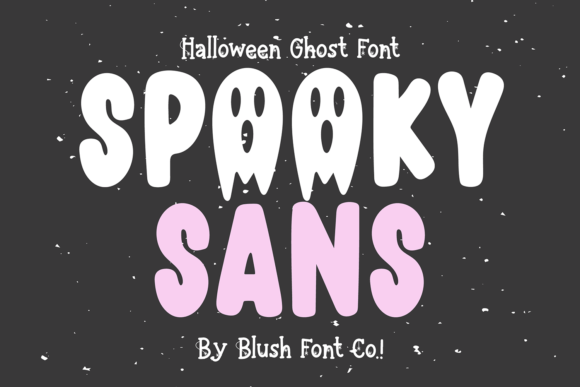
Introducing "Spooky Sans Font" - the ultimate Halloween font that will send shivers down your spine and add a haunting touch to all your creative projects! Created by the innovative minds at blushfontco, this bold and captivating sans serif font is specifically designed to elevate your Halloween party invitations, web graphics, and other spooky crafts to the next level.
When it comes to creating a truly spine-chilling atmosphere, the right font can make all the difference. With "Spooky Sans Font," you'll have the perfect tool at your fingertips to bring your dark and mysterious visions to life. This font exudes an air of mystery and intrigue, capturing the essence of Halloween like no other.
Crafted with meticulous attention to detail, "Spooky Sans Font" embraces the spirit of Halloween with its soft yet bold block style. Each letter is carefully crafted to evoke a sense of eerie anticipation, making it the ideal choice for creating a mysterious ambiance that will leave your audience spellbound.
One of the most remarkable features of "Spooky Sans Font" is its versatility. Whether you're designing a spine-tingling Halloween party invitation, a chilling website banner, or a bone-chilling poster, this font will effortlessly adapt to your needs. Its bold and clean lines ensure maximum readability, while its unique character shapes add an element of surprise and intrigue.
But what truly sets "Spooky Sans Font" apart is its ability to evoke emotions and create an unforgettable experience for your audience. By using this font, you'll instantly transport your viewers into a world of darkness, where shadows dance and whispers echo. Every stroke of this font will send shivers down your spine and ignite the imagination of your audience.
With "Spooky Sans Font," the possibilities are endless. Let your creativity run wild as you conjure up the perfect Halloween atmosphere. Whether you're a professional graphic designer or a DIY enthusiast, this font will empower you to create stunning visuals that will captivate and mesmerize.